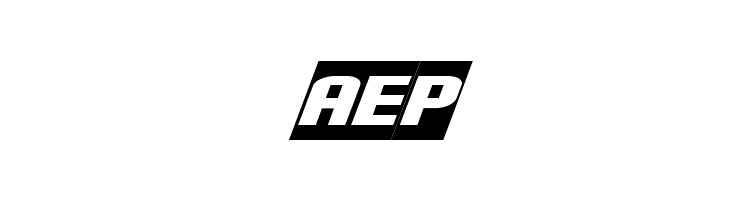
A futuristic and angular font with sharp edges and geometric forms.
A bold, italicized font with sharp angles and a futuristic design.
A bold, futuristic font with angular, geometric shapes and a dynamic, three-dimensional effect.
A futuristic, angular font with bold lines and dynamic slant.
A bold, italic font with sharp, angular lines and a futuristic style.
A bold, angular font with a dynamic, forward-leaning design.
A bold, slanted font with a dynamic and modern style.